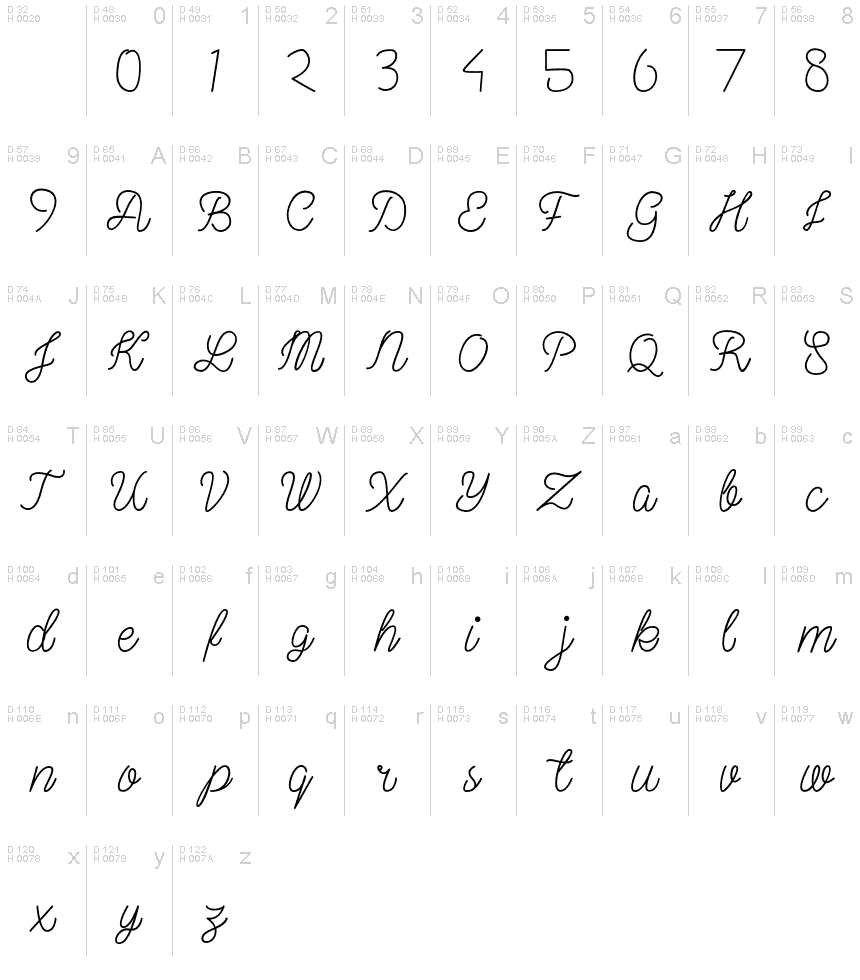
PerfeckSignatureRegular
PerfeckvSignature, crafted by renowned designer Fiqiart, is an exquisite handwritten signature font. Its light weight exudes elegance and sophistication, making it ideal for a variety of projects. Capture attention with stunning wedding invitations or personalize your brand identity with a touch of refinement. Enhance fashion blogs with its graceful curves or add a distinctive flair to luxury product packaging. Perfect for logos, branding materials, and social media graphics that demand a personal touch. Elevate your designs and leave a lasting impression with the impeccable PerfeckvSignature font.